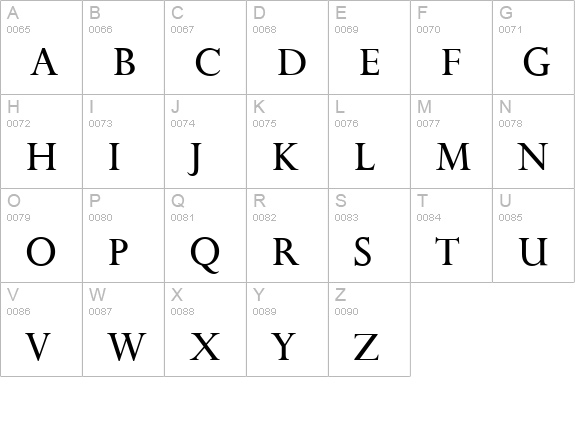
Persistent-Regular Font Details
Persistent-Regular is the standard, neutral variant in the Persistent typeface family \xE2\x80\x94 well suited to general body text, paragraphs, and standard typographic work.
Introducing Persistent-Regular font, a sleek and modern typeface designed to make a lasting impression. With its clean lines and versatility, this font is perfect for a wide range of design projects, from branding to editorial layouts. The Persistent-Regular font exudes a sense of professionalism and sophistication, making it ideal for corporate materials, presentations, and marketing collateral. Its timeless appearance ensures that your message will be conveyed clearly and elegantly. This font is available for free download at FontsMarket.com, where you can access a wide selection of high-quality fonts for all your creative needs. Don't miss out on the opportunity to elevate your designs with the timeless appeal of Persistent-Regular font. Download it now and start creating impactful and memorable visuals today.